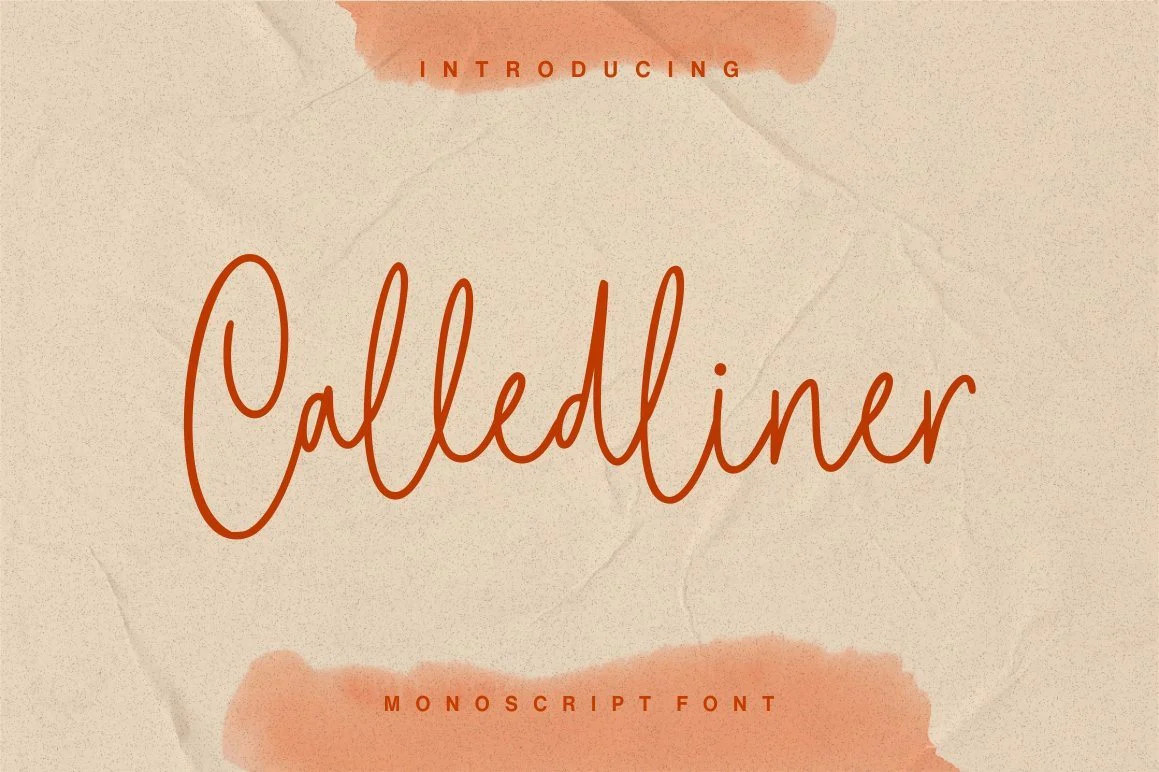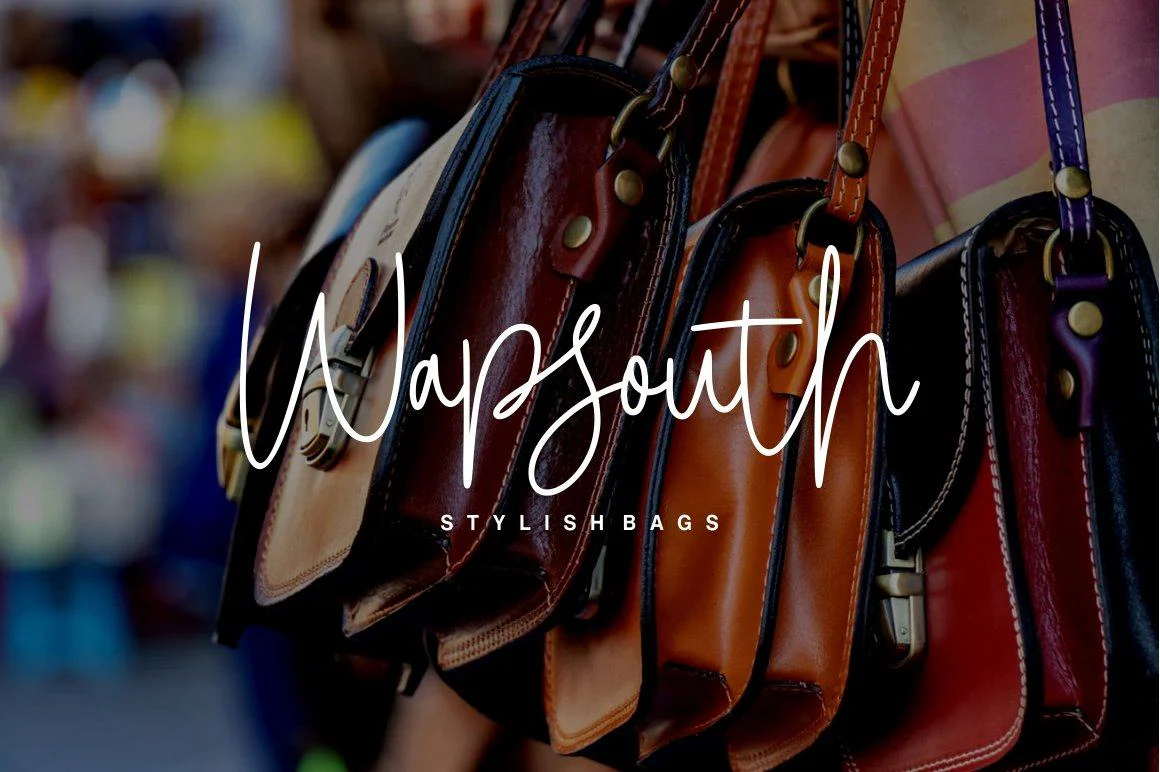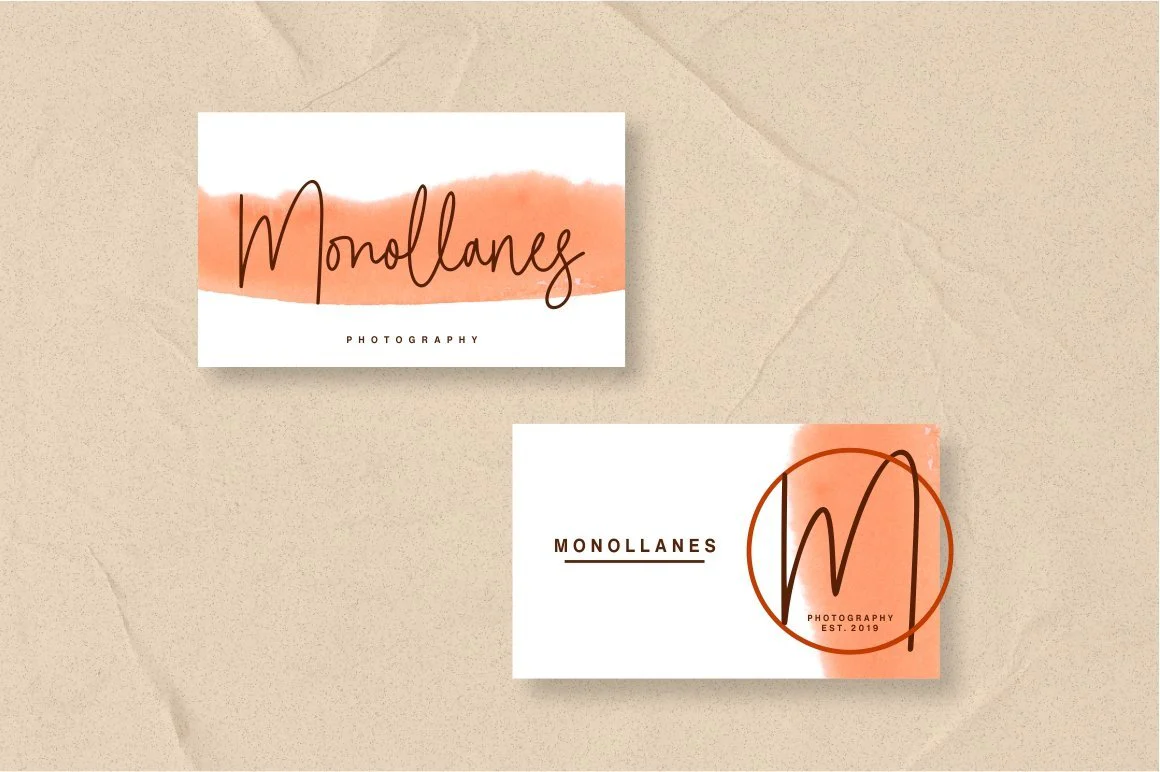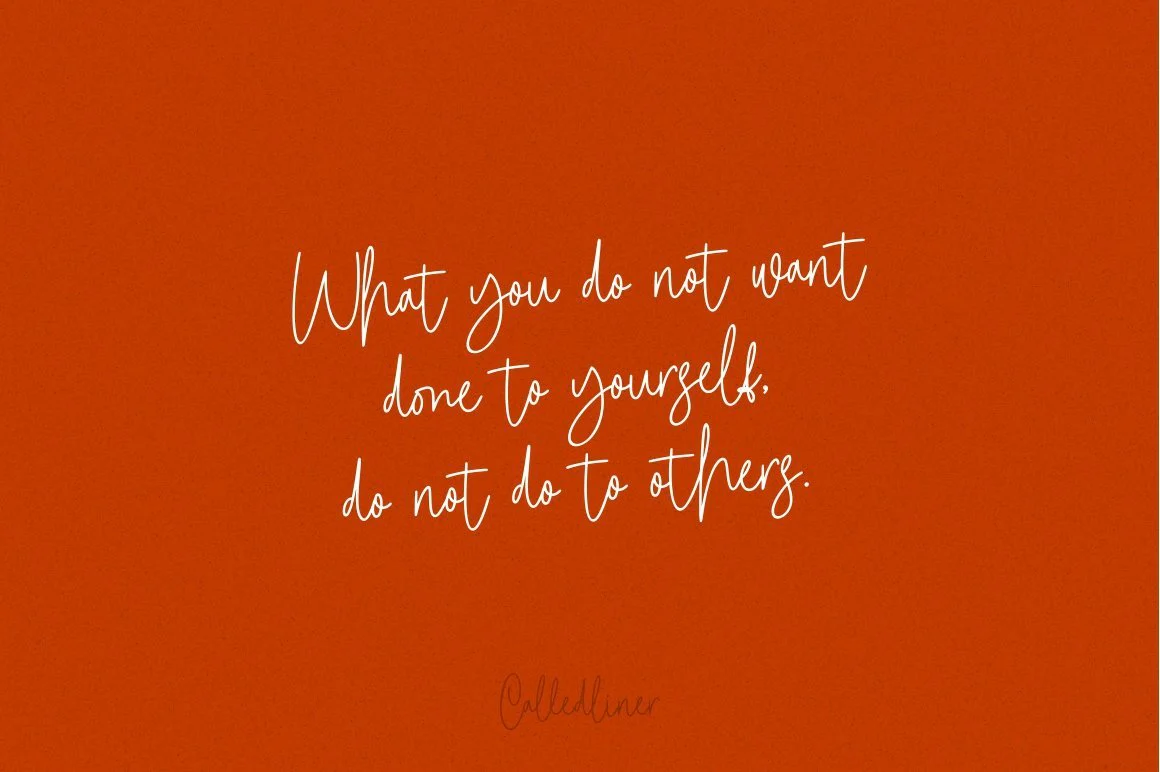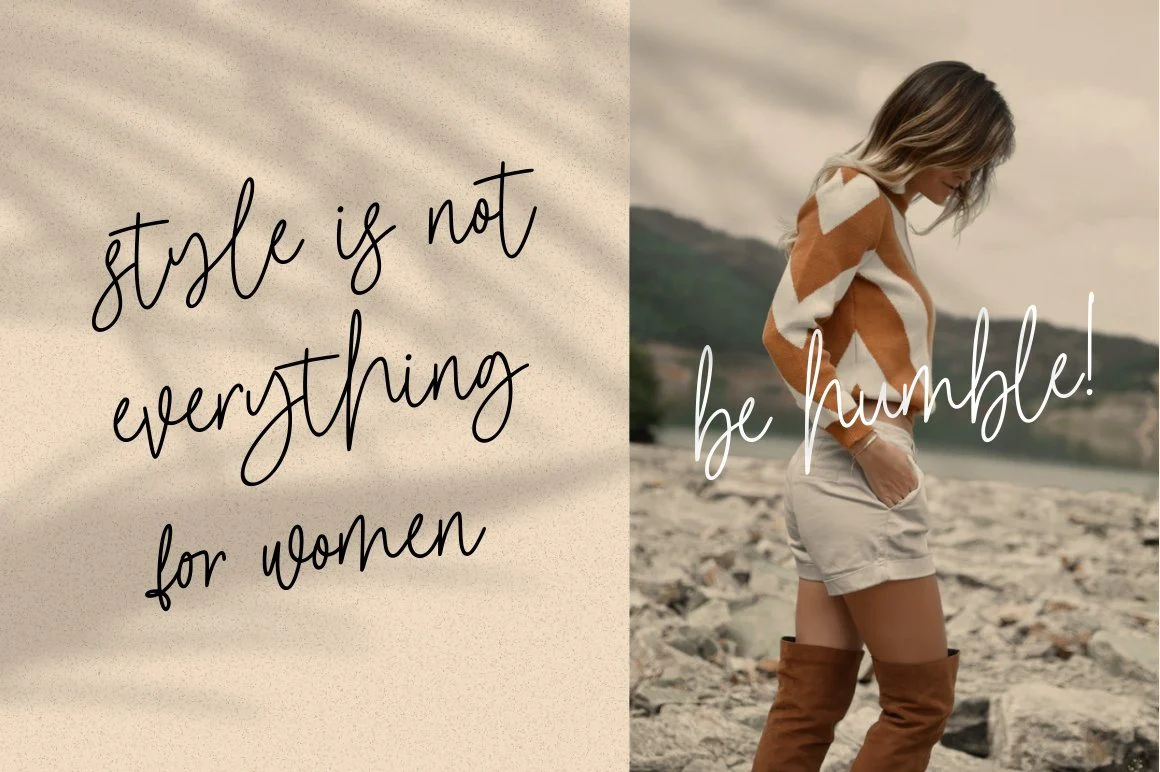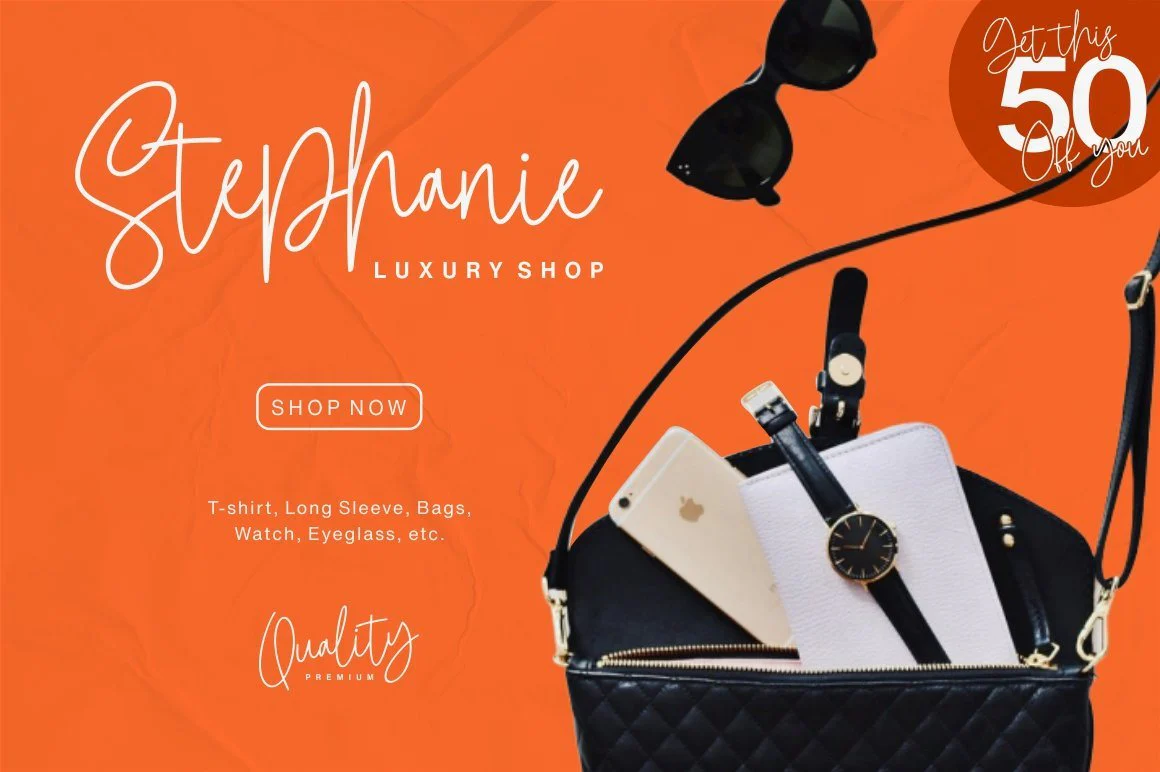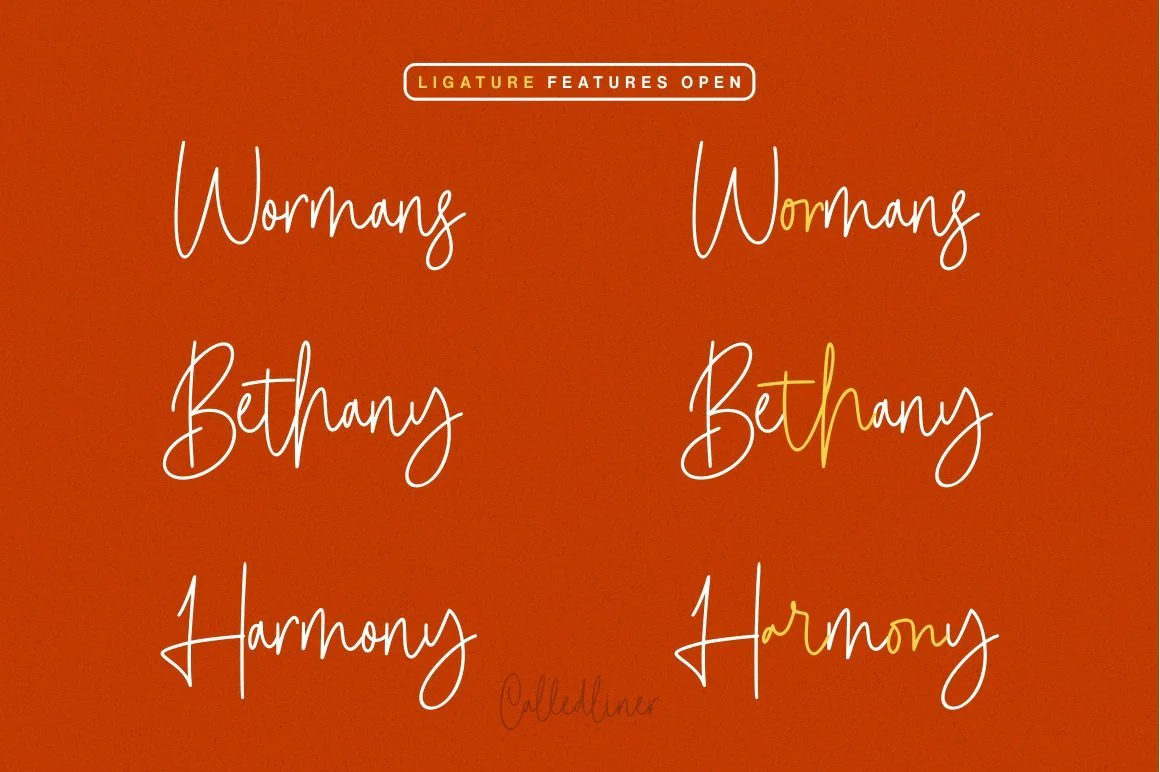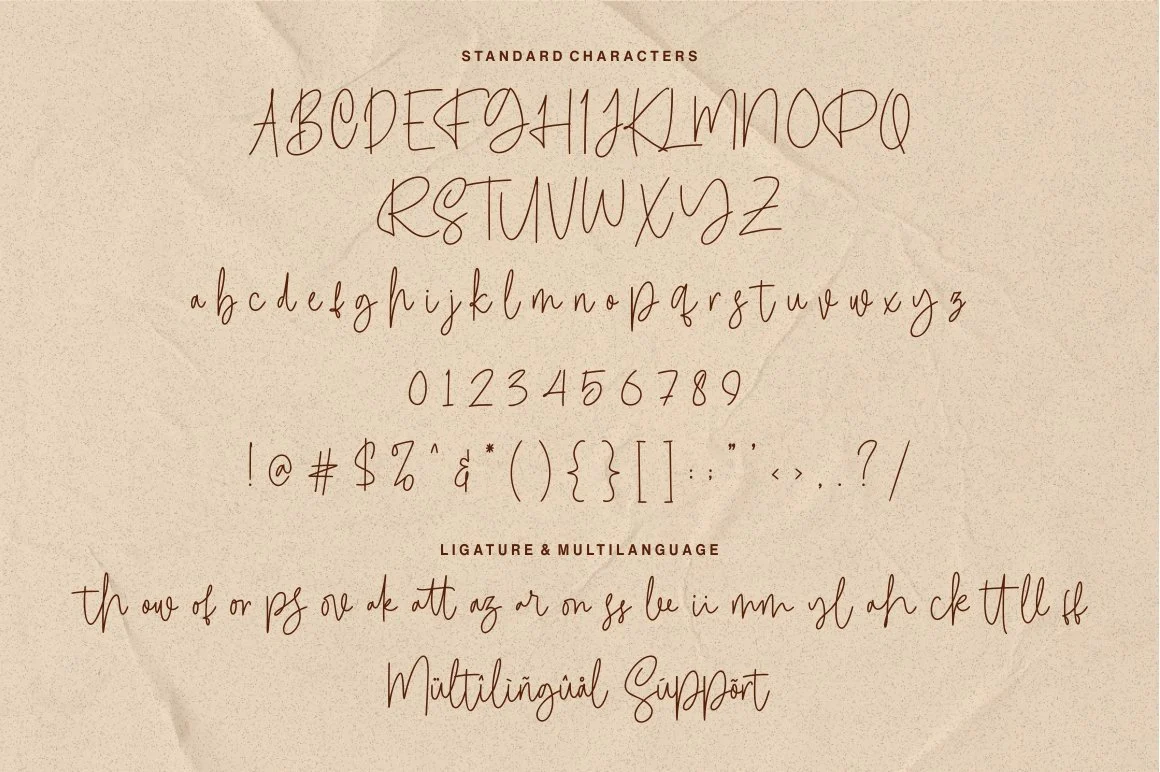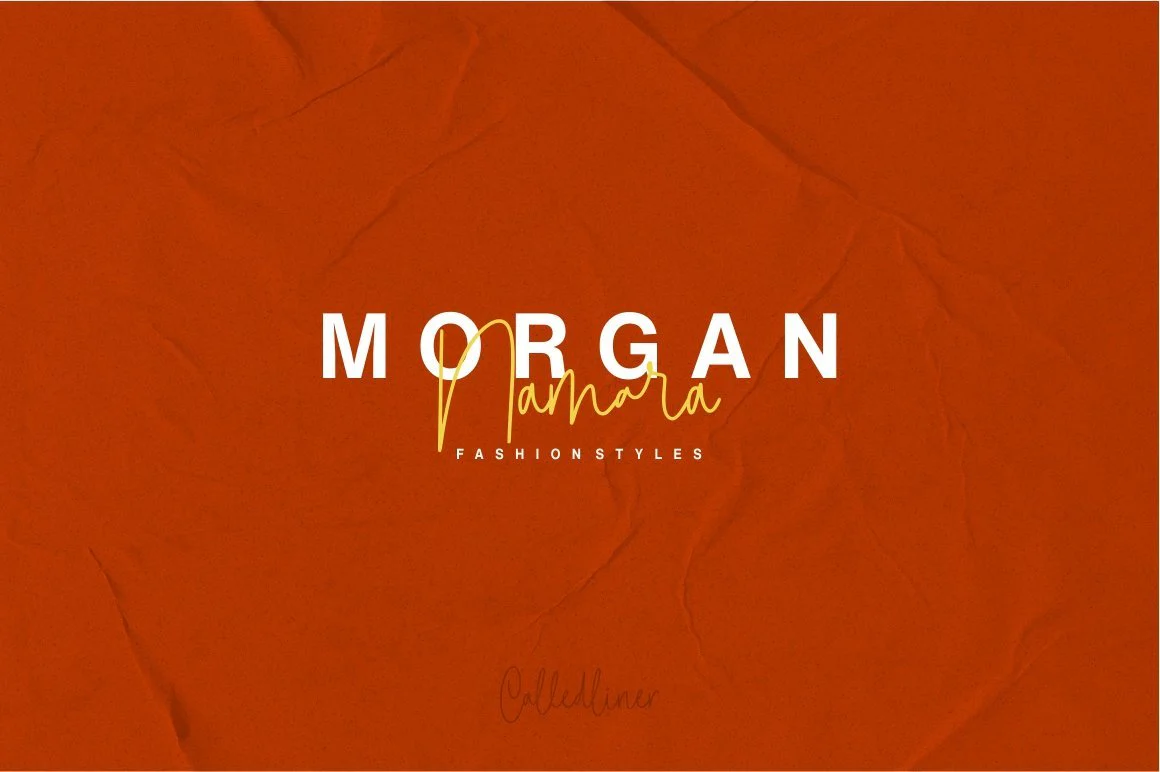
Calledliner - Monoscript Font
Introducing Calledliner - Monoscript Font
Calledliner is a perfect beautiful monoline or monoscript font for every projects that you want. You can use this font for your logo company with lettering style, modern, elegant, creative, professional and unique concept.
- Uppercase & Lowercase letters